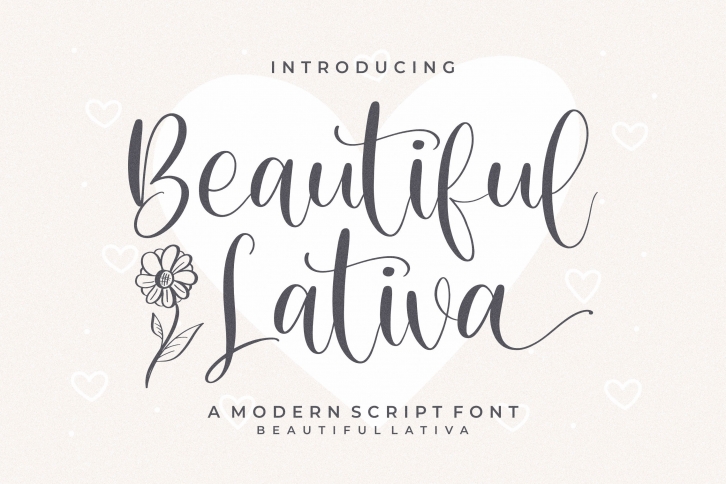
Beautiful Lativa is a delicate script font carefully created with a touch of elegance. Whether you’re looking for fonts for Instagram or calligraphy scripts for DIY projects, this font will turn any creative idea into a true piece of art!